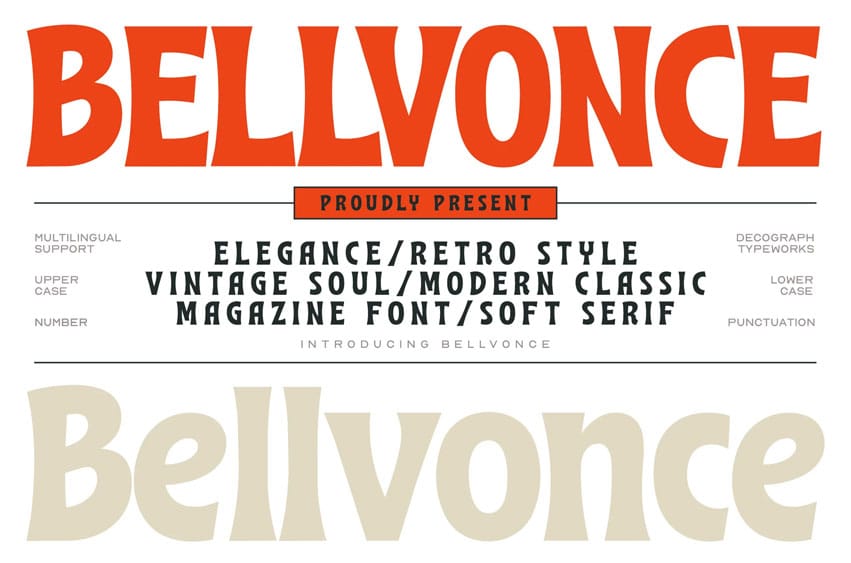
Bellvonce Font Vintage Soft Serif Display Font is an elegant typeface that blends retro soul with modern editorial sophistication. Its soft serif structure, refined curves, and balanced proportions create a timeless aesthetic that feels both classic and contemporary. The smooth shapes give the font a stylish personality perfect for premium visual design.
Designed for elegant headlines and editorial layouts, this font works beautifully in magazines, branding, and sophisticated creative projects. Whether used for logos, fashion graphics, posters, or luxury packaging, it delivers a refined and confident typographic presence.